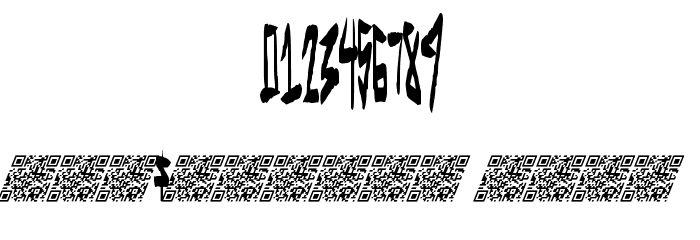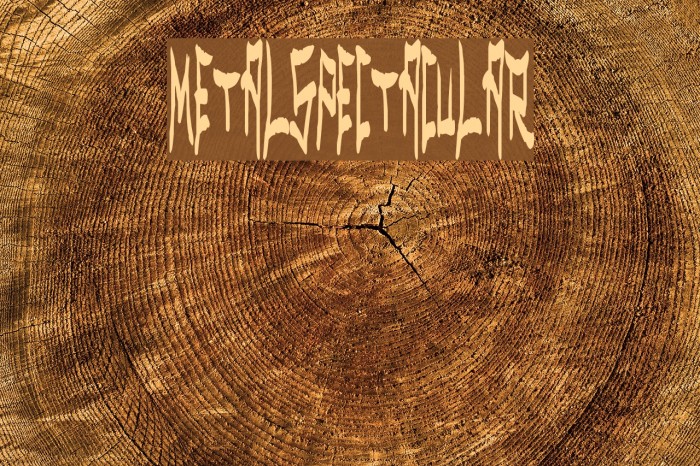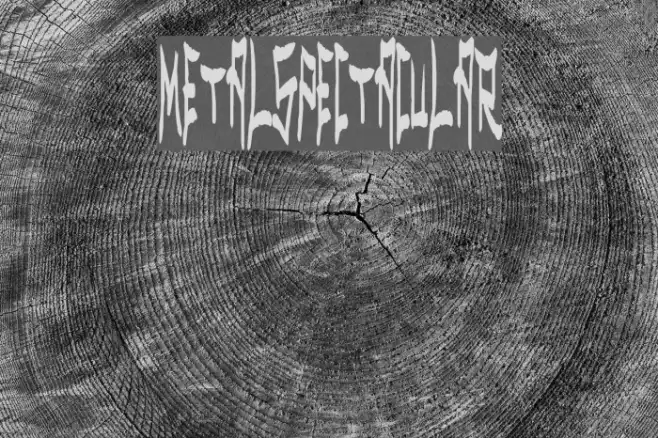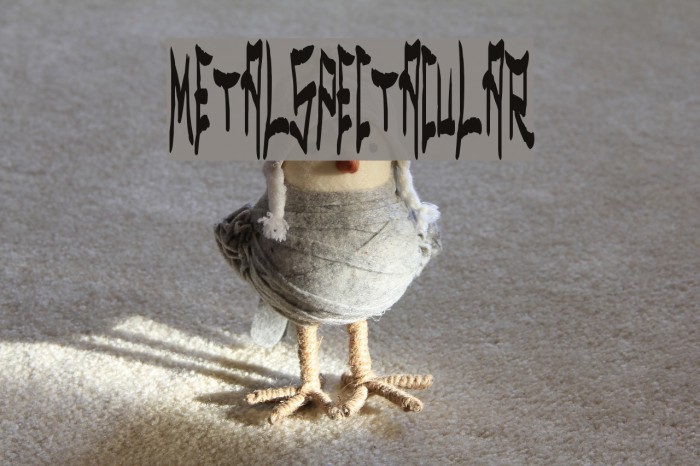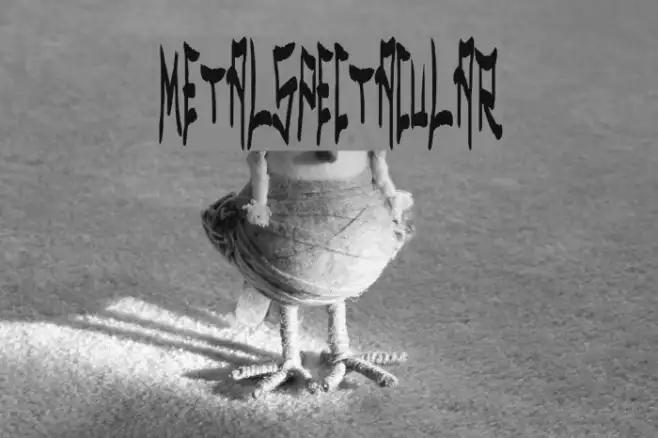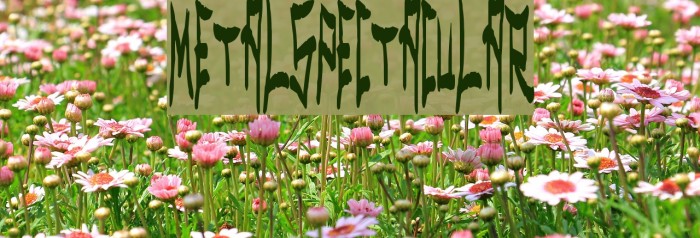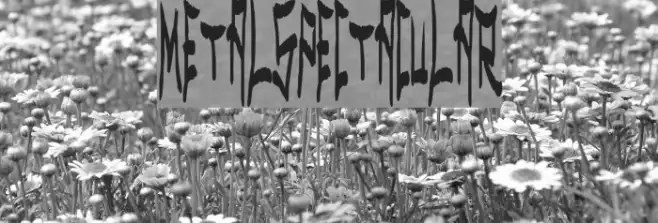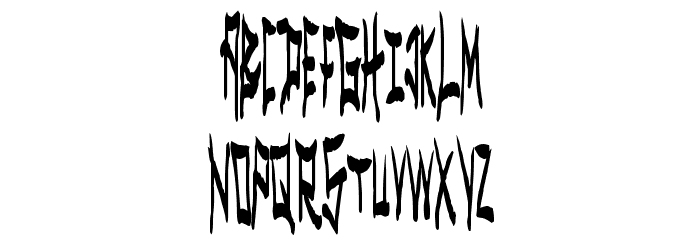
MetalSpectacular Font
MetalSpectacular Description
This font features a bold, jagged design reminiscent of heavy metal aesthetics. The characters are sharply angled with uneven edges, giving them an aggressive and dynamic appearance. The uppercase and lowercase letters maintain a consistent style, with exaggerated strokes and a sense of movement. The numbers follow the same design principles, ensuring uniformity across the font. Special characters are included, matching the overall edgy and intense vibe. This font is perfect for projects that require a strong, impactful visual presence.
| Use Case | Logos, Headlines, Posters |
| Proposed Projects | Ideal for music album covers, band logos, event posters, and any design needing a bold, edgy look. |